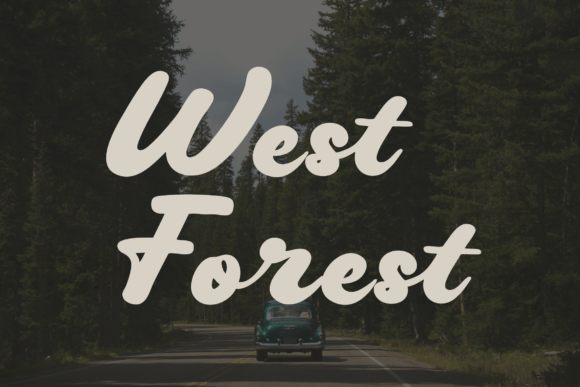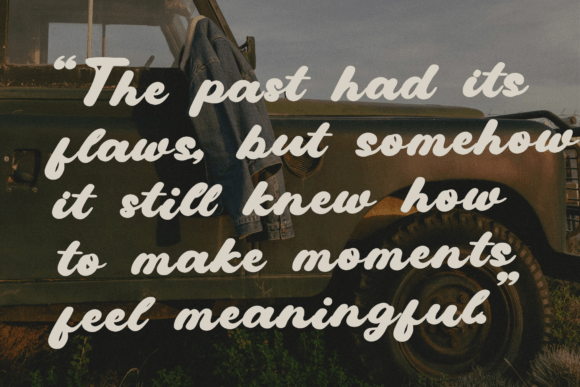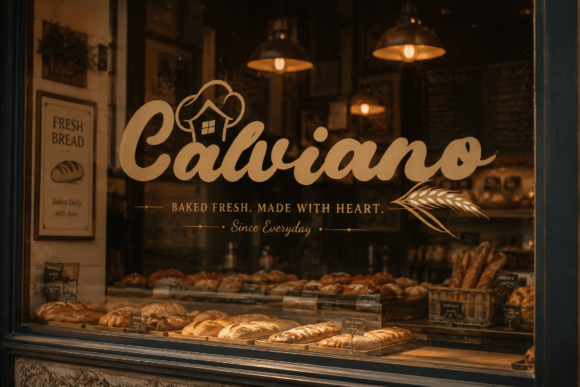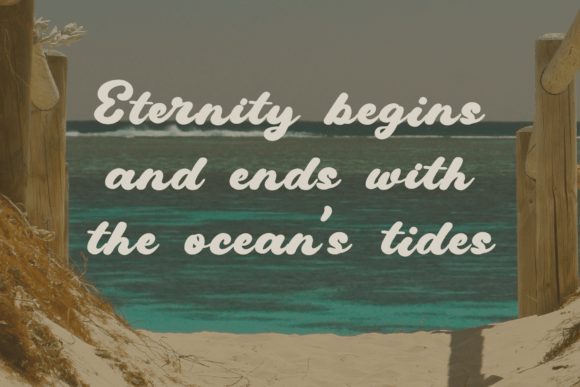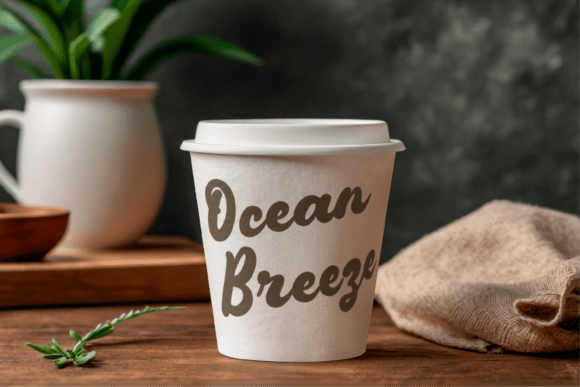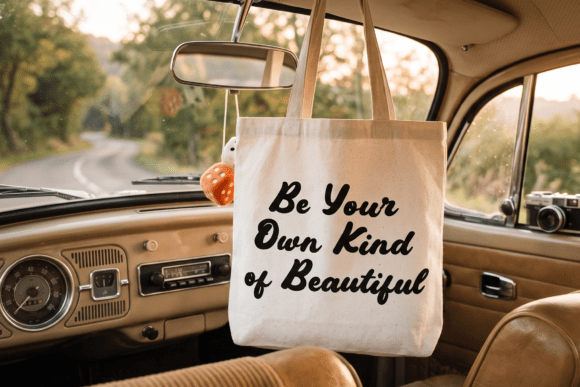
Introducing Getsclo Script: The Vintage Font That Brings Warmth and Sophistication to Your Designs
Have you ever been in the middle of a design project, and suddenly, you just can’t seem to find the right font? I recall a particularly frustrating experience when a client asked for a logo design that exuded warmth, nostalgia, and authenticity. After scouring through countless font libraries, I stumbled upon Getsclo Script – a bold and charming vintage font that instantly captured the essence of what I was looking for.
Getsclo Script is a retro-inspired font that draws its inspiration from classic storefront signage and mid-century typography. Its flowing curves and strong character presence make it clear and catchy to the viewer. Whether you’re designing a logo for an artisanal bakery, creating an appealing window display, or crafting a vintage-themed food package, Getsclo Script brings timeless appeal and professional sophistication to your creative projects.
What I Love About Getsclo Script
- ✨ Unique and charming design: Getsclo Script has a distinct personality that sets it apart from other fonts.
- ✅ Elegant and sophisticated: The font’s flowing curves and classic feel make it perfect for high-end branding and design projects.
- 🔥 Versatile: Getsclo Script can be used for a wide range of applications, from logos and signage to packaging and editorial design.
- 💡 Easy to read: Despite its ornate design, Getsclo Script remains clear and legible, even at smaller font sizes.
While Getsclo Script is an exceptional font, there are a few minor quirks to be aware of:
- 🤔 Limited use of uppercase letters: While the font does include uppercase letters, they may not be as stylized as the lowercase letters.
- ⚠️ Requires careful kerning: As with any script font, Getsclo Script may require manual kerning to ensure optimal spacing and readability.
The Designer Inspiration Behind Getsclo Script
Getsclo Script was designed with the intention of capturing the essence of classic storefront signage and mid-century typography. The font’s creator drew inspiration from vintage advertisements, storefront signs, and editorial design from the 1950s and 1960s. The result is a font that exudes warmth, nostalgia, and authenticity – perfect for designers looking to add a touch of classic sophistication to their projects.
| What is Getsclo Script? | Getsclo Script is a bold and charming vintage font inspired by classic storefront signage and mid-century typography. |
| What can I use Getsclo Script for? | Getsclo Script can be used for a wide range of applications, including logos, signage, packaging, editorial design, and more. |
| Is Getsclo Script easy to read? | Yes, despite its ornate design, Getsclo Script remains clear and legible, even at smaller font sizes. |